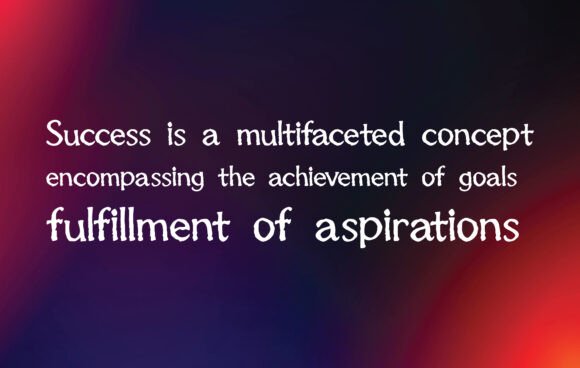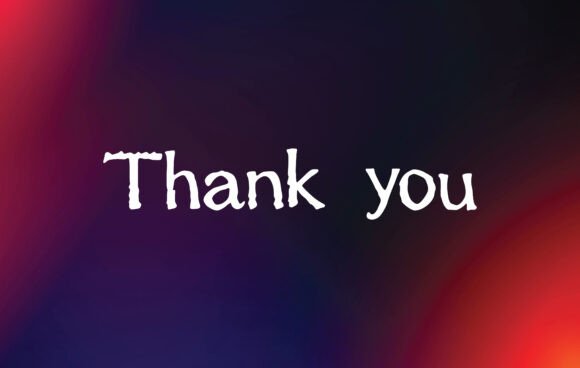
The Enchanting Aphrodite Font: Elevate Your Designs with Elegance
I’ll never forget the time I was working on a branding project for a luxury spa, and I was struggling to find the perfect font to convey the sense of serenity and sophistication my client wanted. That’s when I stumbled upon the Aphrodite font, and it was love at first sight! 💫 This lovely and beautiful handwritten font has the potential to take your creative ideas to the highest level, making it the best choice for creating eye-catching logos, branding, and quotes.
- 💫 Elegant and sophisticated, perfect for luxury brands and high-end designs
- 🎨 Versatile and adaptable, suitable for a wide range of design applications
- 💬 Beautifully crafted, with a unique and distinctive character
- ⚠️ Some users may find the font a tad too ornate for very casual or playful designs
- 🤔 Limited availability of certain OpenType features in certain software
The Story Behind Aphrodite Font
Aphrodite font was inspired by the Greek goddess of love and beauty, Aphrodite. The font’s creator, a talented type designer, wanted to capture the essence of elegance and sophistication associated with the goddess. The result is a font that’s both beautiful and functional, perfect for designs that require a touch of luxury and refinement.
Q: Is Aphrodite font suitable for body text?
A: While Aphrodite font is beautiful and elegant, it may not be the best choice for body text due to its ornate nature. It’s better suited for headings, titles, and short paragraphs.